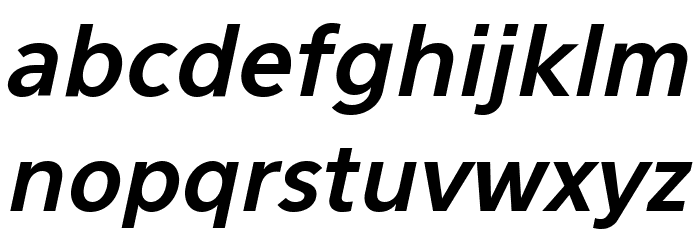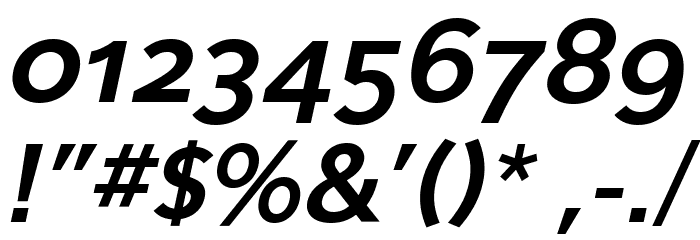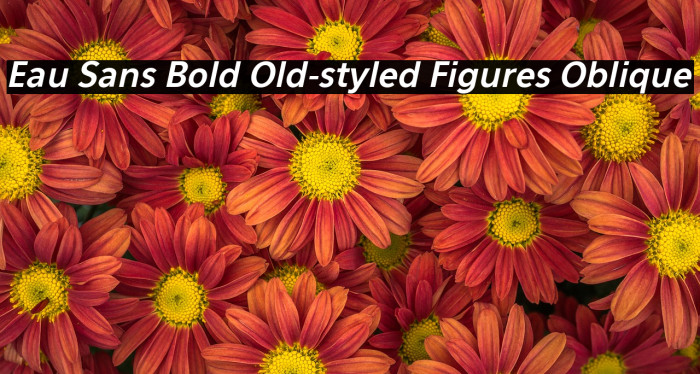
Eau Sans Bold Old-styled Figures Oblique Font
This font exhibits a modern sans-serif style with a bold weight and oblique orientation, giving it a dynamic and contemporary appearance. The characters are clean and streamlined, featuring smooth curves and sharp edges that enhance readability. The uppercase and lowercase letters maintain a consistent height and width, ensuring uniformity across text. The numerals are proportionate and align well with the alphabetic characters, while the special characters are distinct and easily recognizable. The overall design is versatile, making it suitable for various applications where clarity and impact are desired.
A bold, oblique sans-serif font with a modern and dynamic style.
- Proposed Projects: Ideal for branding, advertising, headlines, and digital media where a modern and impactful look is needed.
- Use Case: Headlines, Logos, Branding